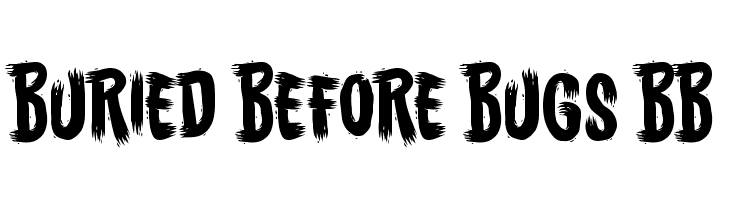
A playful, hand-drawn font with a rough, informal style.
A playful, hand-drawn font with a whimsical and casual style.
A playful, hand-drawn font with a rough, bold style.
A playful, rough, and bold font with a hand-drawn aesthetic.
A playful, rough, and bold italic font with a hand-drawn appearance.
A bold, italic, hand-drawn font with a playful and dynamic style.
A playful, rough, italicized font with a hand-drawn appearance.
A playful, rough, and italicized font with a hand-drawn appearance.